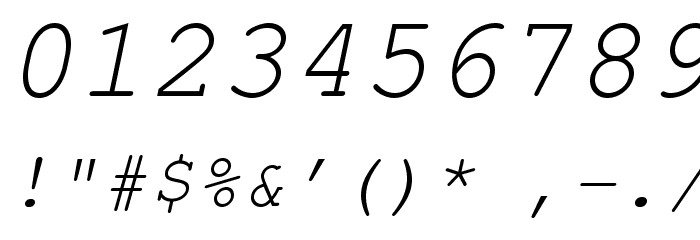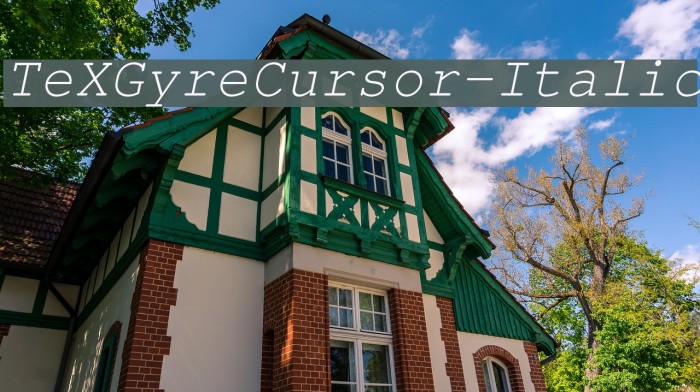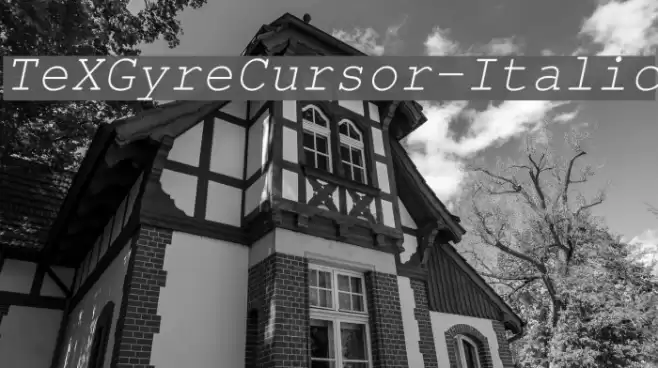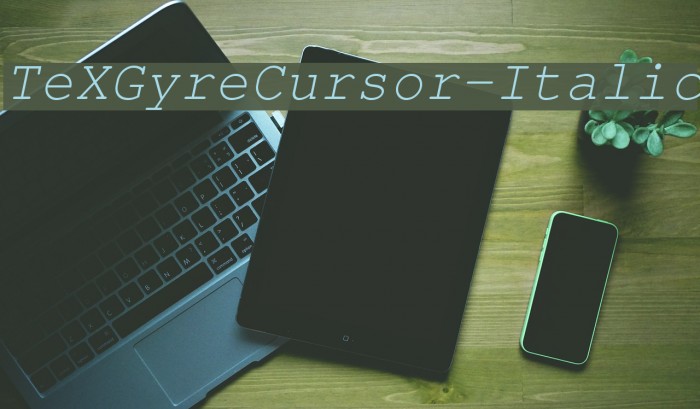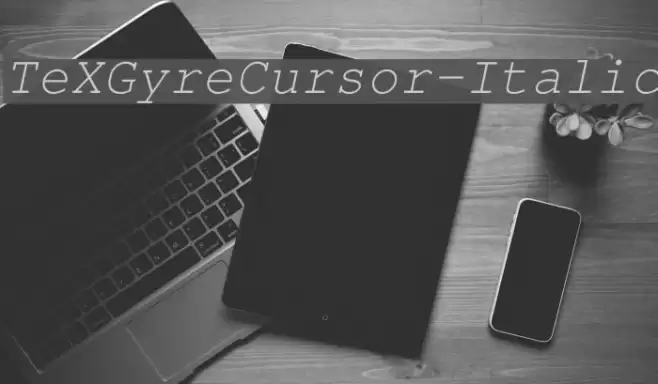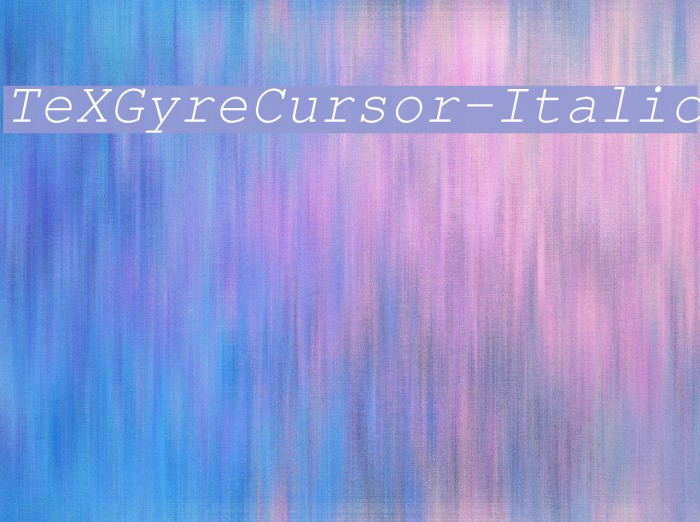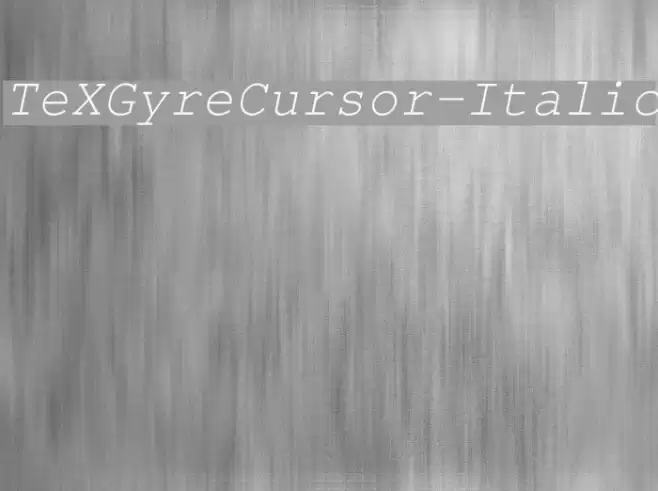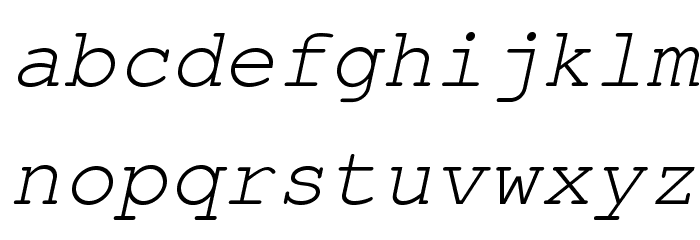
TeXGyreCursor-Italic Font
TeXGyreCursor-Italic Description
This font exhibits a classic monospaced style with a distinct italic slant, giving it a dynamic and sophisticated appearance. The characters are evenly spaced, maintaining a consistent width that is characteristic of monospaced fonts. The italicization adds a touch of elegance, making it suitable for both formal and informal contexts. The strokes are clean and uniform, with a medium contrast that ensures readability while adding a subtle flair. The font's design is straightforward yet refined, making it versatile for various applications.
| Overall Style | Classic |
| Use Case | Coding, Technical documentation, Formal documents |
| Proposed Projects | Ideal for coding environments, technical documentation, or any project requiring a clean, readable monospaced font with a touch of elegance. |